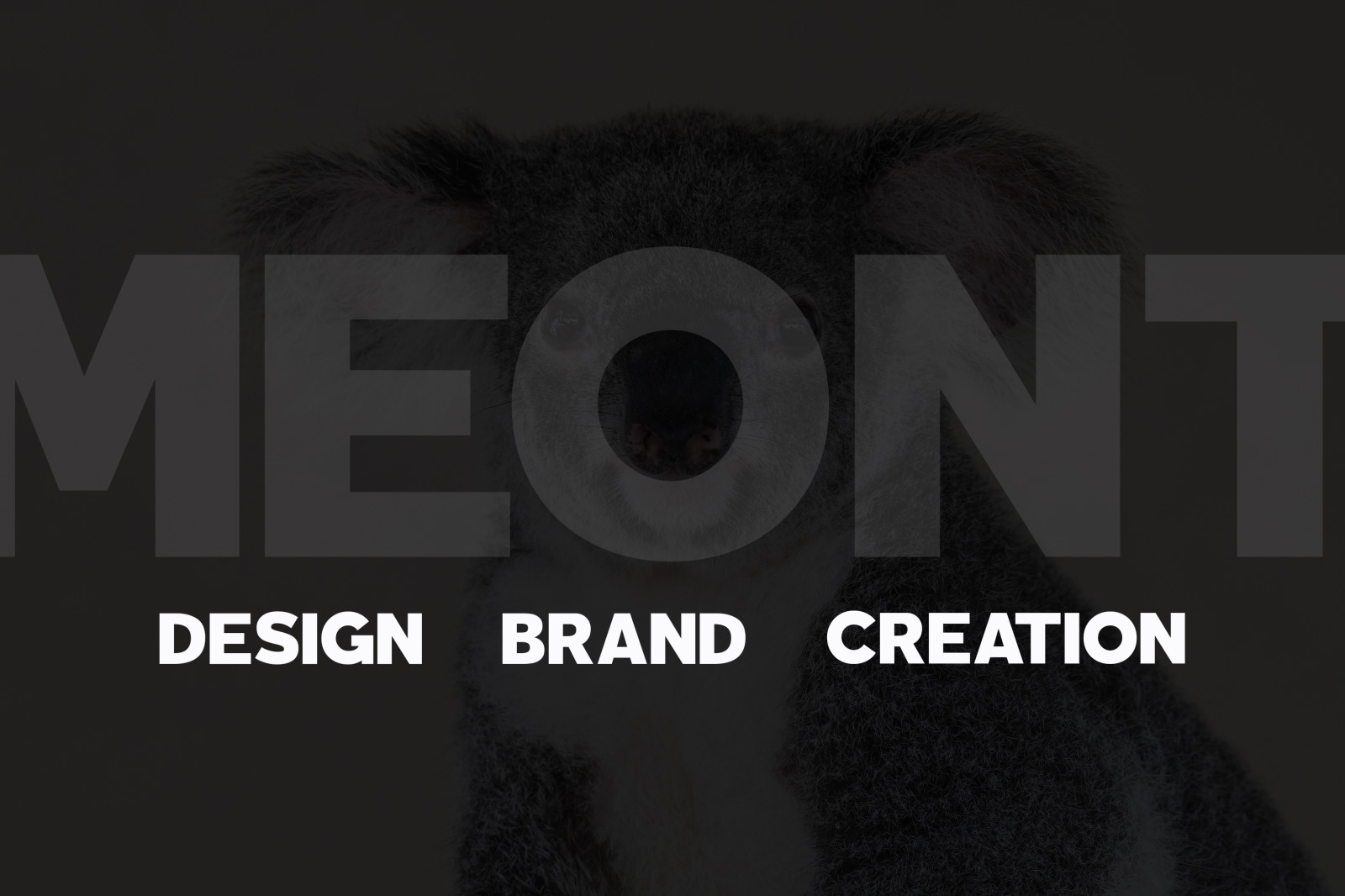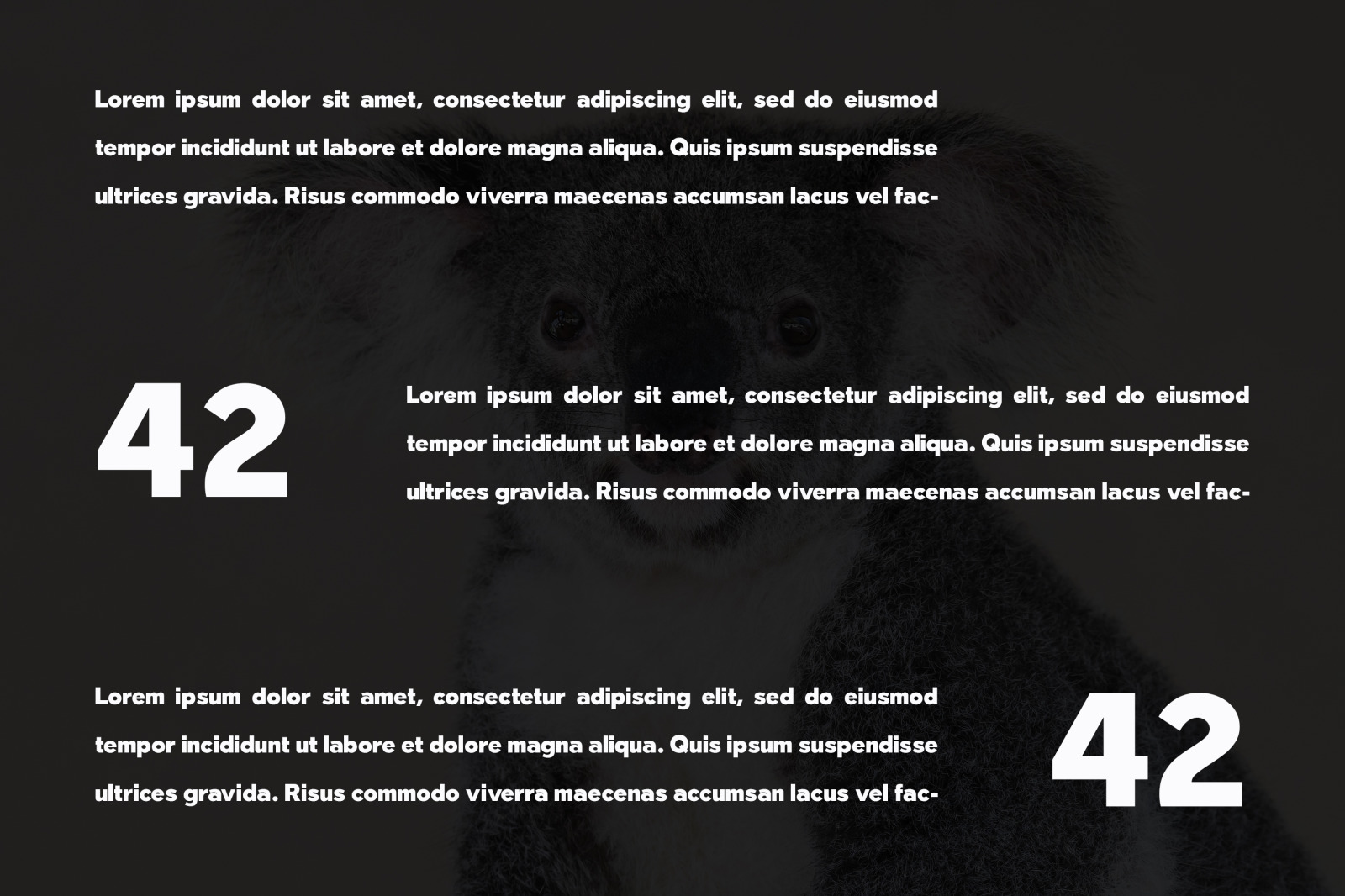
MEONT FONT
Meont is a minimal and neat sans serif font. It will look stunning on any poster, flyer or print. Use this font for your designs and explore its endless possibilities.
Meont will be perfect for logo, packaging, greeting cards, presentations, headlines, lettering, posters, branding, quotes, titles, magazines headings, web layouts, art quote, typography, advertising, invitations, packaging design, books, book title, and nearly any creative design.